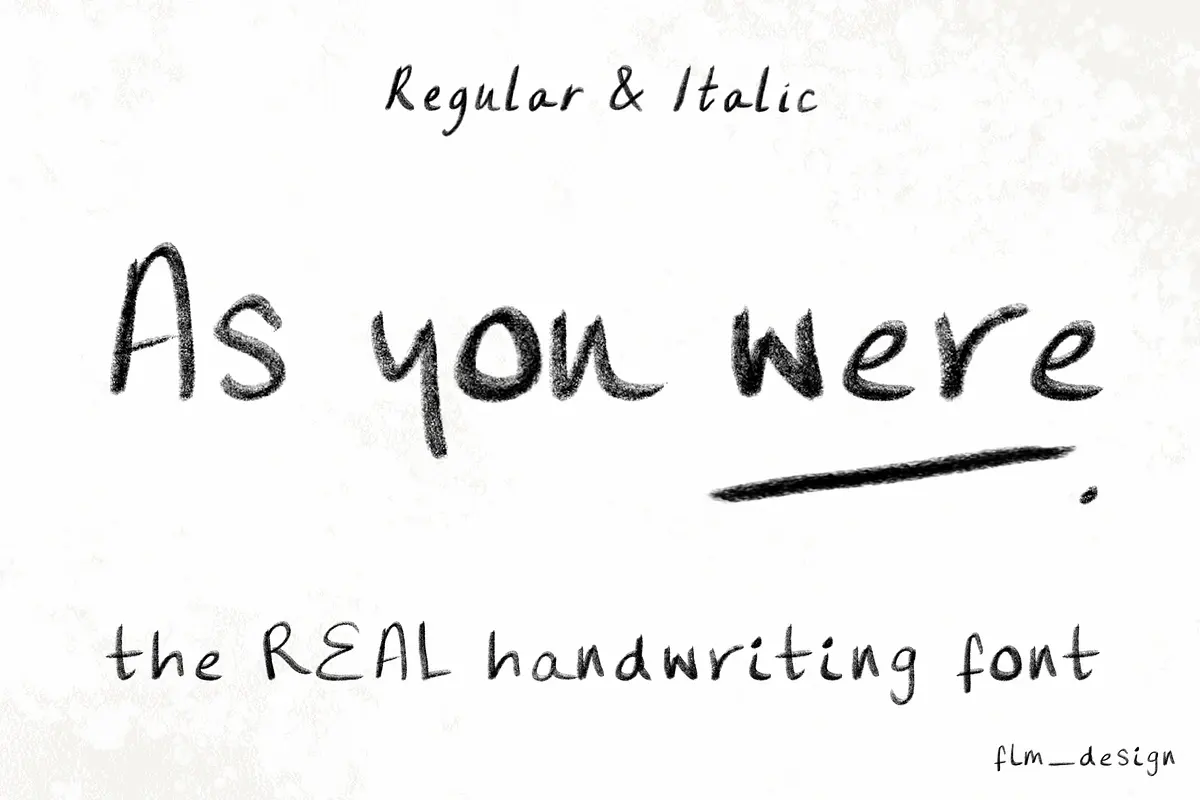
As You Were Casual Handwriting Font Free Download
You must purchase this font for commercial use. However, you can download As You Were Casual Handwriting Font Free Download for testing purposes. As You Were is a relaxed, casual handwriting font that adds a personal and authentic touch to your designs. With its natural, fluid strokes, this font is perfect for projects that require a friendly and approachable feel, such as personal branding, invitations, quotes, and social media content.
Its informal, easygoing style makes it ideal for designs that need a down-to-earth, handwritten charm. Whether you're creating a fun logo, crafting a warm invitation, or adding a personal touch to a blog post, As You Were Casual Handwriting Font brings warmth and character to your typography.